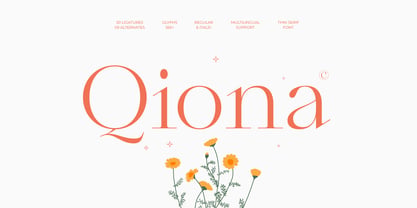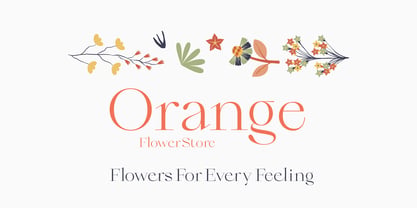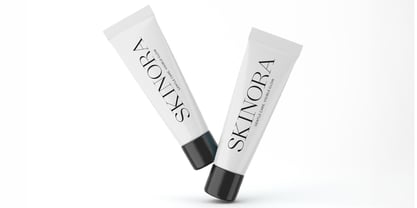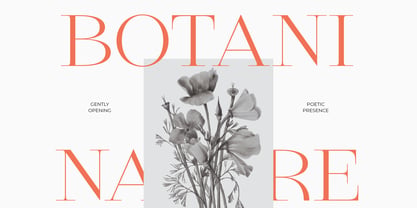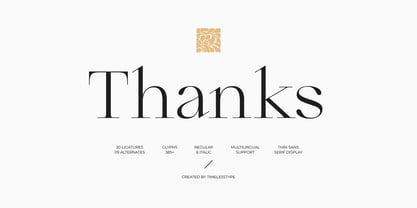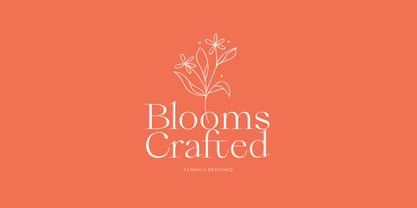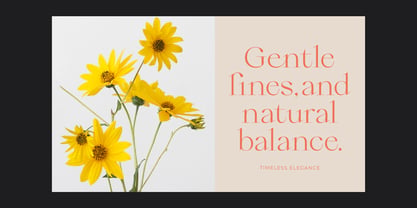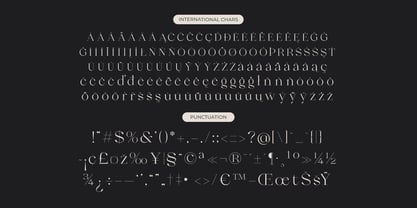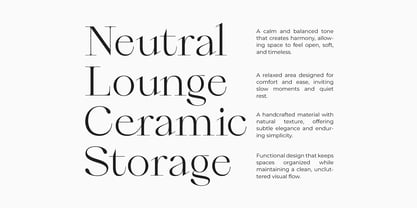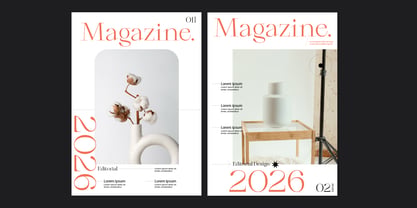
The Qiona Font Family was designed by Heru Utama Putra and published by Timelesstype Studio. Qiona contains 2 styles and family package options. More about this family
Qiona is a thin serif font designed with graceful proportions, refined curves, and a soft modern elegance that feels clean, feminine, and timeless. The letterforms feature delicate contrast, smooth terminals, and subtle organic details that give the typeface a warm editorial character without losing clarity. Built with 30 ligatures, 9 alternates, over 365 glyphs, regular and italic styles, and full multilingual support, Qiona offers flexibility for refined typographic compositions. This font is ideal for editorial layouts, fashion branding, beauty products, magazines, book covers, invitations, packaging, and minimalist logos where elegance and readability matter. Designed for both print and digital use, Qiona works best as a display serif for designers seeking a light, sophisticated, and modern serif font with a calm, aesthetic presence.
Qiona